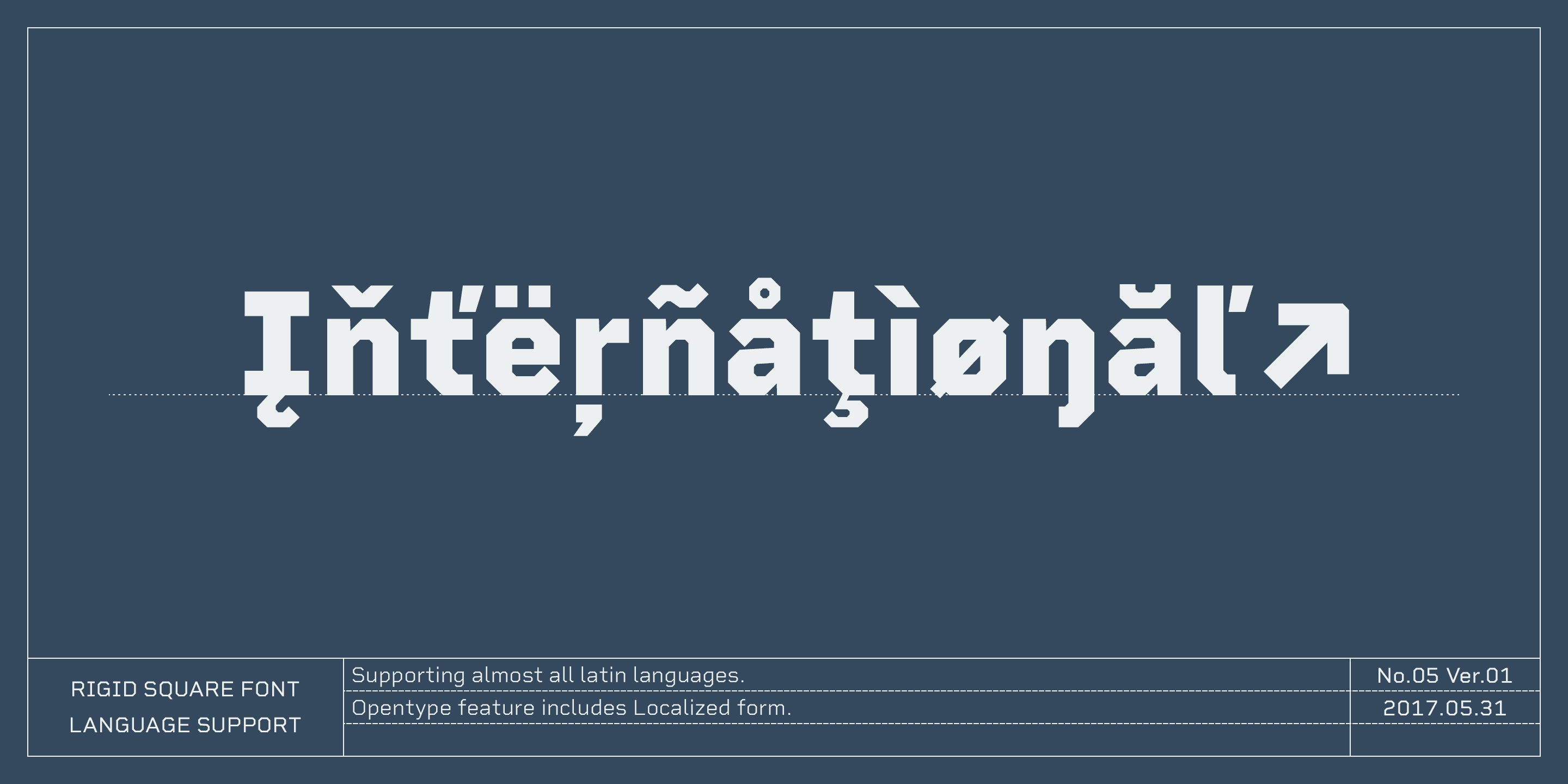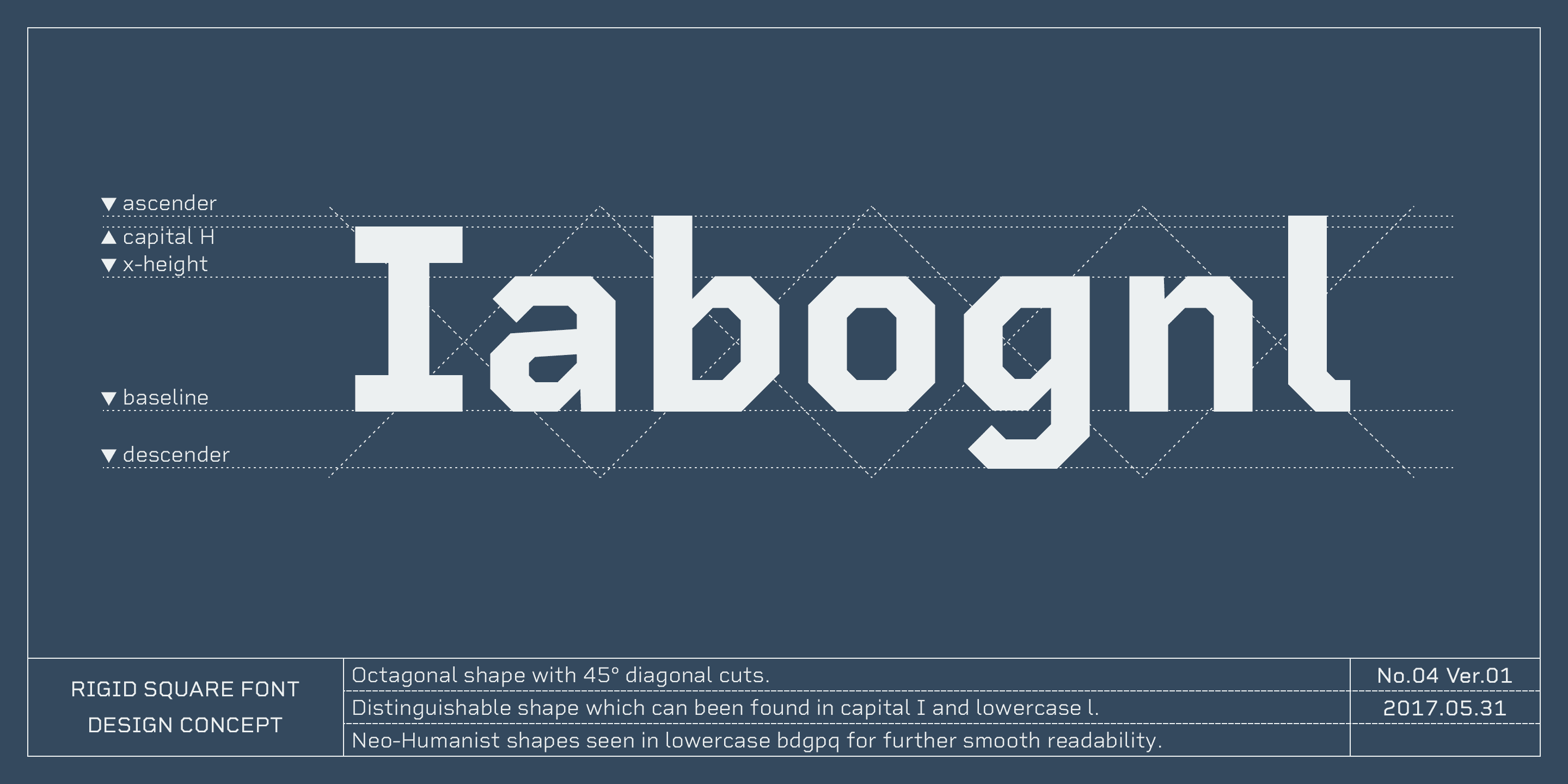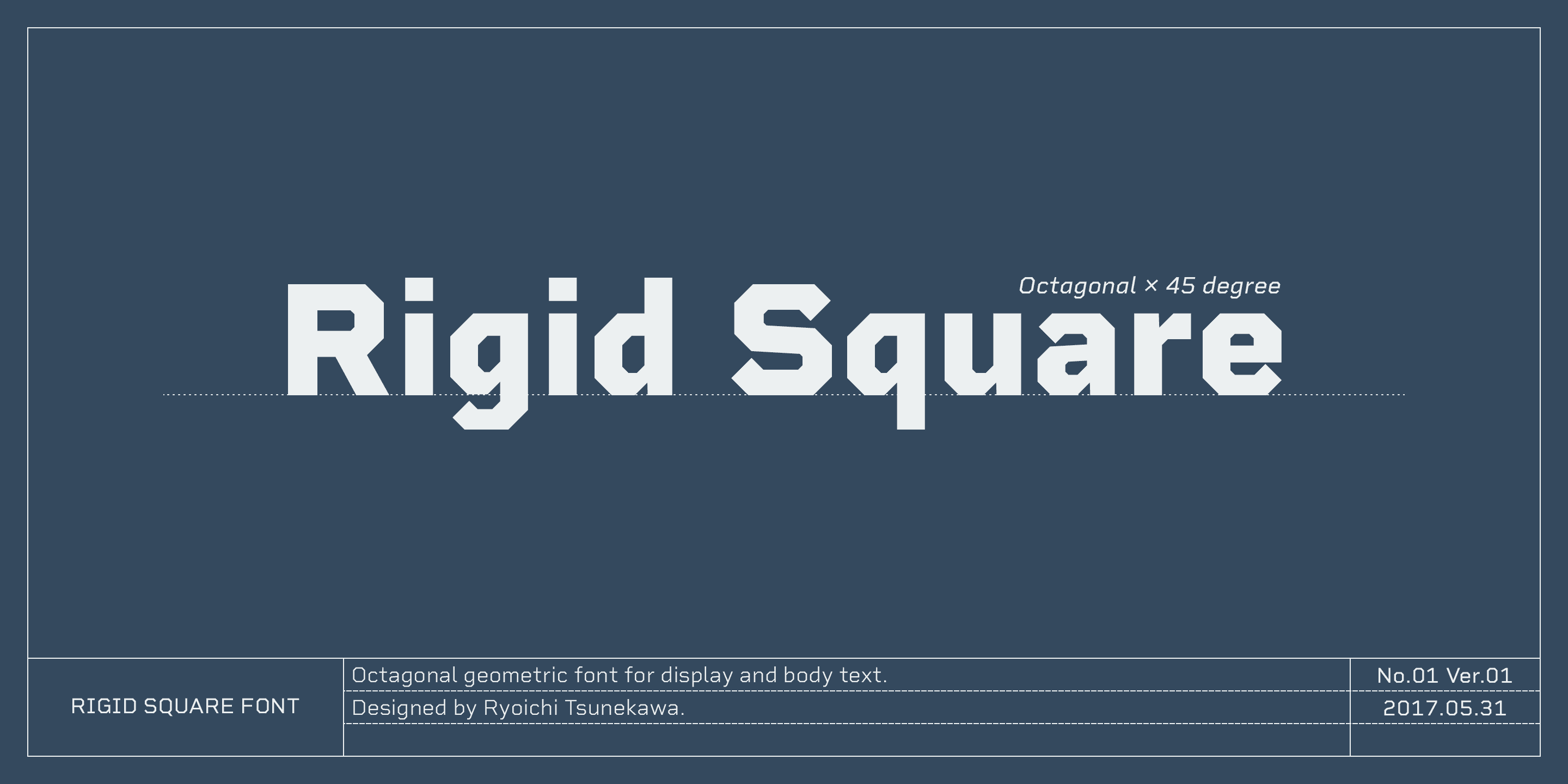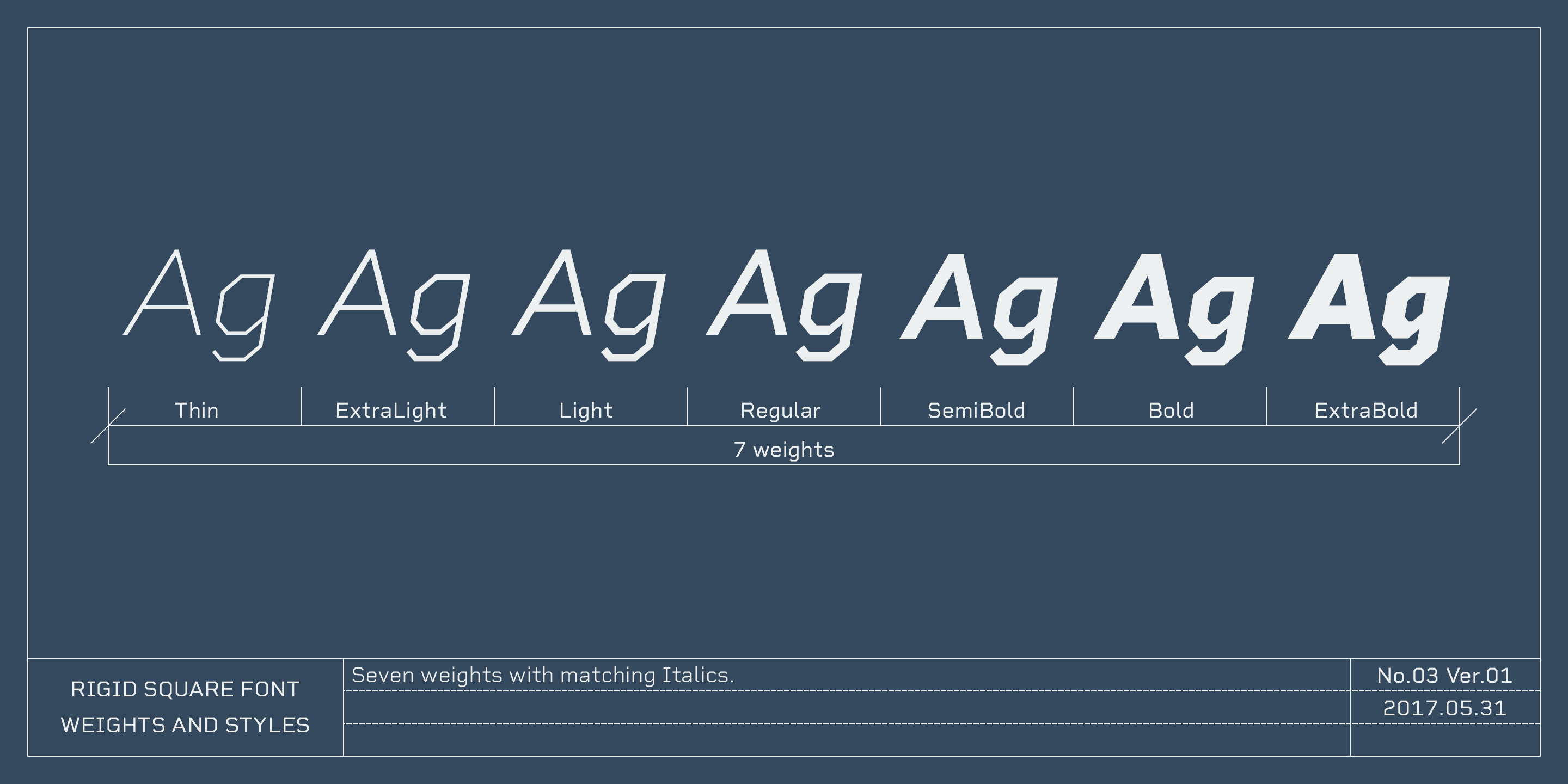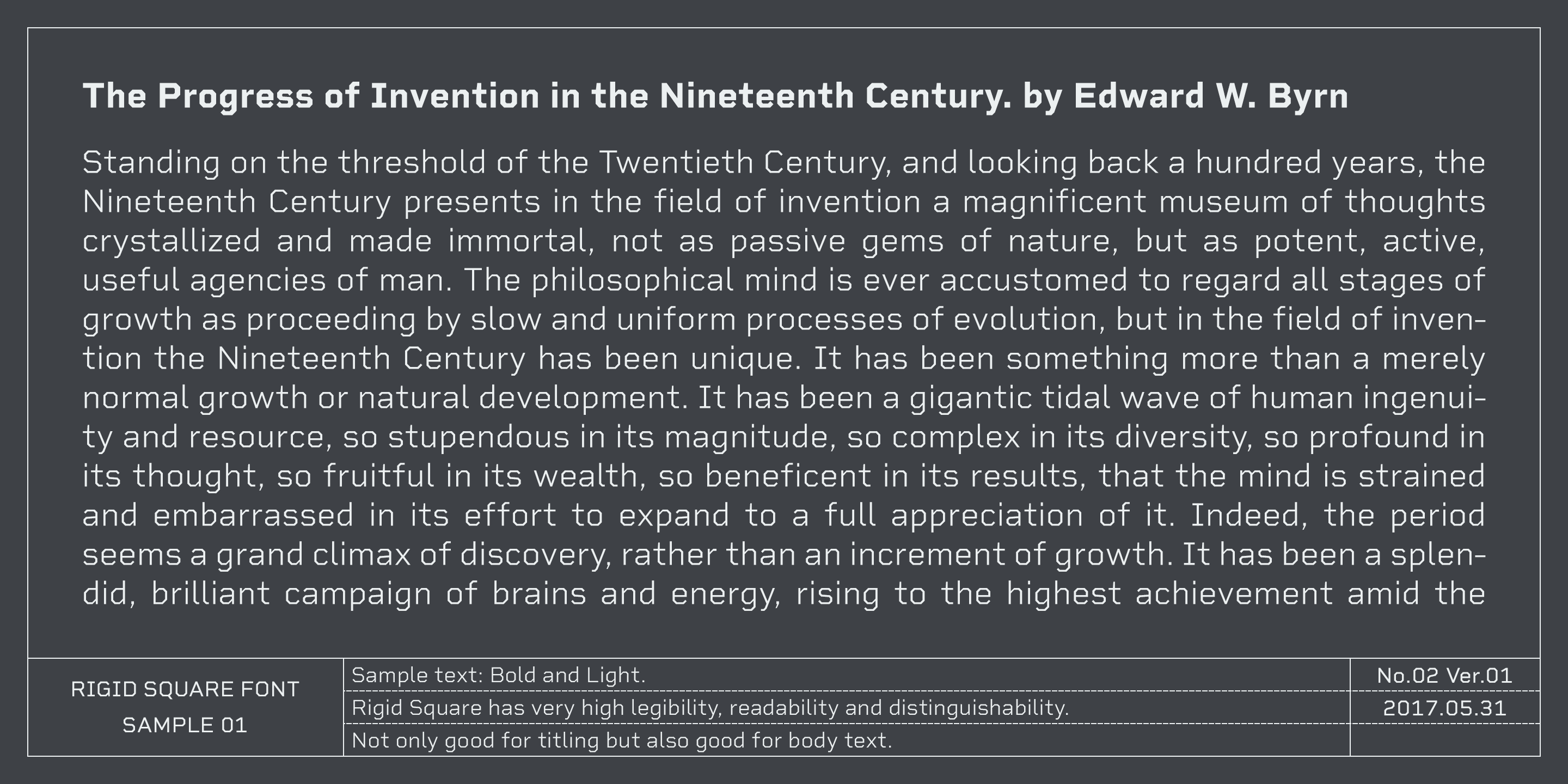
Rigid Square Family (14 fonts)
Both capital and lowercase Is have a distinguishable shape. Lowercase letters b,d,g,p,q contains a neo-humanist shape for smooth readability.
Rigid Square can also be used for display, titles, and captions by their sophisticated glyph shape and eye-catching geometry.
Consists of seven weights with italics. Supports several Latin languages.
Ligatures, Contextual Alternates, Fractions, Superscript, Subscript